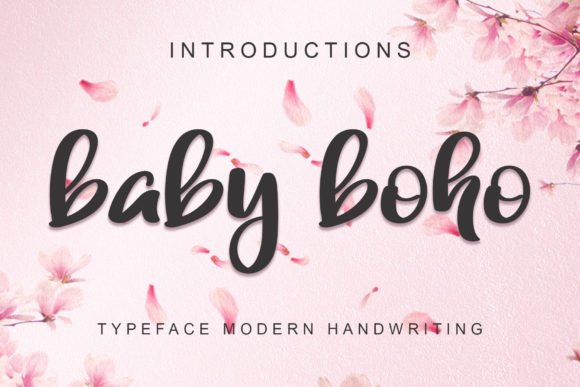
Give Your Designs a Whimsical Touch with the Baby Boho Font
As a creative, have you ever found yourself pouring over design inspiration boards, searching for that perfect font to bring your vision to life? It’s a feeling we’ve all been there – that spark of excitement when you stumble upon a font that speaks to your aesthetic, and you just know it’s the one.
Enter the Baby Boho Font, a beautiful and refreshing handwritten font designed to add a touch of whimsy and elegance to your designs. With its trendy and chic vibe, this font is perfect for those looking to create a unique and eye-catching visual identity. Whether you’re a graphic designer, artist, or simply a creative soul, the Baby Boho Font is a valuable addition to your toolkit.
Baby Boho Font Key Features
- Font Style: A unique, handwritten font with a bohemian feel, perfect for creating a whimsical and romantic atmosphere.
- Character Set: Includes uppercase and lowercase letters, numerals, punctuation marks, and special characters, making it suitable for a wide range of applications.
- Unique Characteristics: Features distinctive flourishes, swashes, and connecting strokes that add a touch of elegance and sophistication to any design.
Designer Review: Baby Boho Font
At first glance, the Baby Boho Font has a certain charm to it. The ✨ soft, rounded edges and ✨ gentle curves give it a whimsical feel that’s perfect for feminine designs. I can see it working well for baby-related products, home decor, or even wedding invitations.
- ✨ Versatile: The font is suitable for various design projects, from kids’ items to more elegant designs.
- ✨ Easy to read: The clear, open design makes it effortless to read, even at smaller font sizes.
- ✨ Stylish: The unique, bohemian-inspired style adds a touch of sophistication to any design.
- ⚠️ Limited character set: The font seems to lack some special characters and punctuation marks, which can be a limitation for more complex designs.
- ⚠️ Not suitable for formal designs: The font’s playful nature might not be suitable for more formal or professional projects.
Overall, the Baby Boho Font is a lovely addition to any designer’s toolkit. While it may have some limitations, its unique style and versatility make it a great choice for the right projects.
To get the most out of the Baby Boho Font, try using it in combination with other decorative fonts and adding subtle texture or shading to give it a unique look.
The Baby Boho Font is perfect for:
- Baby shower invitations and decorations
- Children’s party graphics and printables
Alternative Fonts to Baby Boho Font
Great Vibes Font is a modern, elegant script font that can be used for various purposes, including wedding invitations, quotes, and watermarks. It features beautiful, flowing lines and a unique flair at the end of each letter. When to use: For creating a sophisticated, yet playful look in your designs.
Comparison to Baby Boho Font: While Baby Boho Font has a more whimsical and childlike feel, Great Vibes Font is more refined and polished. Great Vibes Font is ideal for designers who want to add a touch of elegance to their designs without losing the playful feel.
Pacifico Font is a beautiful, modern script font that features a relaxed, casual feel. It’s perfect for designs that require a laid-back, beachy vibe. When to use: For creating a relaxed, summery look in your designs, such as beach-themed invitations or travel brochures.
Comparison to Baby Boho Font: While Baby Boho Font has a more playful, childlike feel, Pacifico Font is more mature and sophisticated. Pacifico Font is ideal for designers who want to add a touch of calmness to their designs without losing the fun feel.
Carolyna Pro Font is a modern, elegant script font that features beautiful, flowing lines and a unique flair at the end of each letter. It’s perfect for designs that require a touch of sophistication and elegance. When to use: For creating a luxurious, high-end look in your designs, such as fashion magazines or wedding invitations.